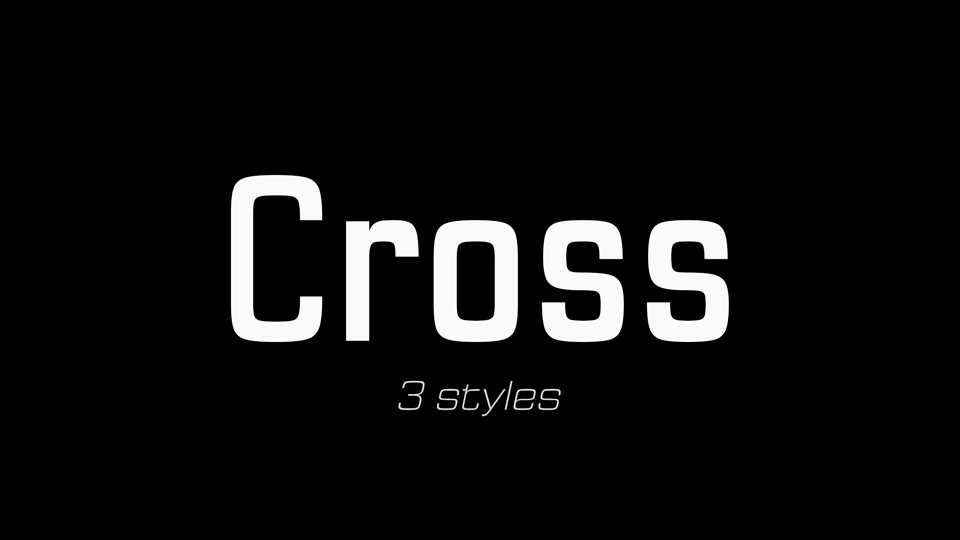
Download Cross typeface, a simple sans serif font family that combines a sturdy industrial feel with smooth, streamlined contours. With three styles, Cross is perfect for display use, posters and headlines, but also works well for text.
Designer: Petr Kučera